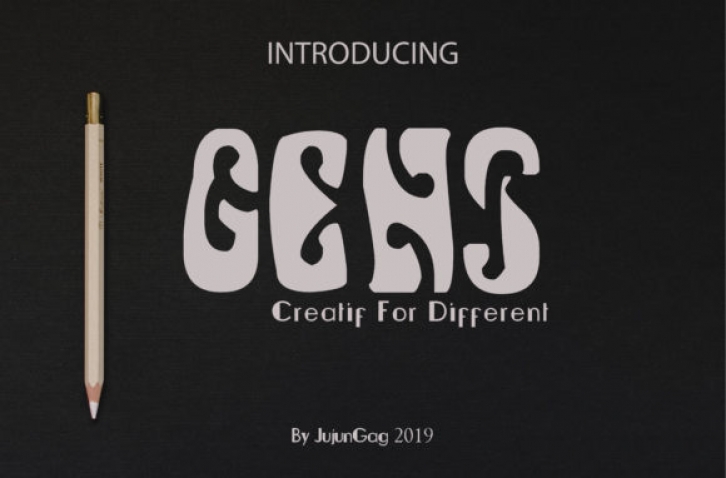
Feeling Funky? Gens New is yet another experimental display typeface. It’s combining great legibility and bold aesthetics into one truly iconic typeface.